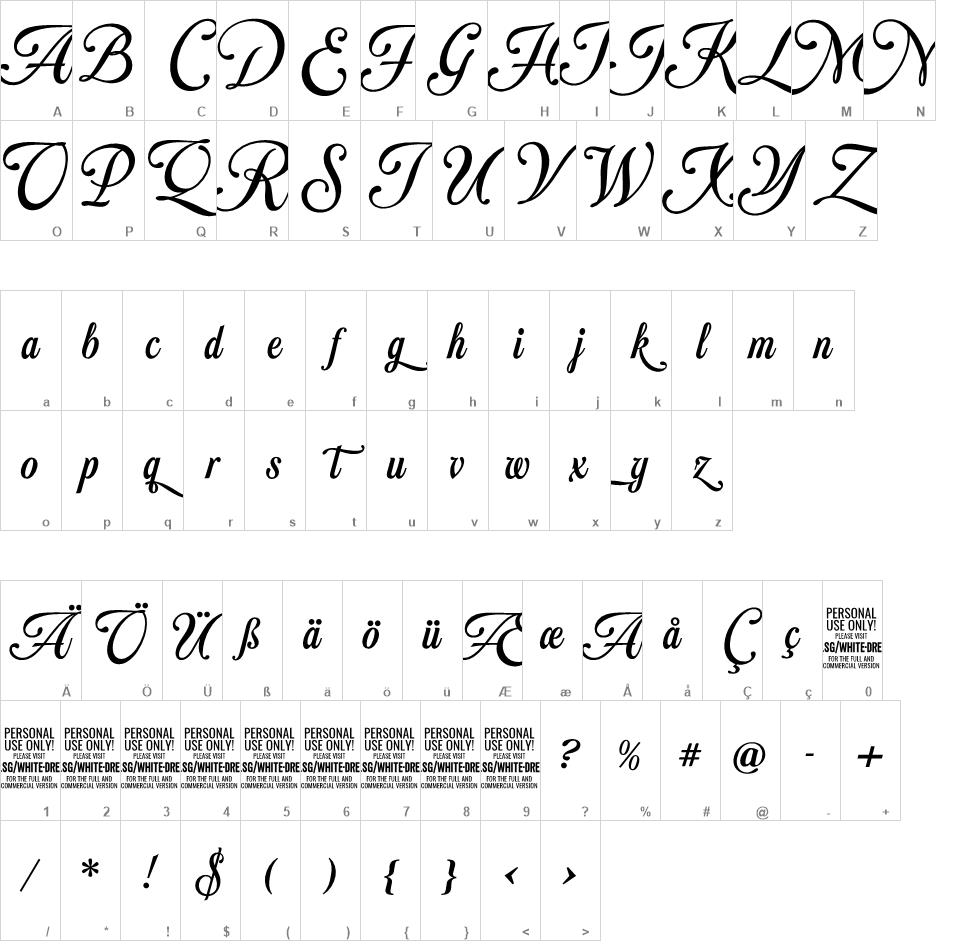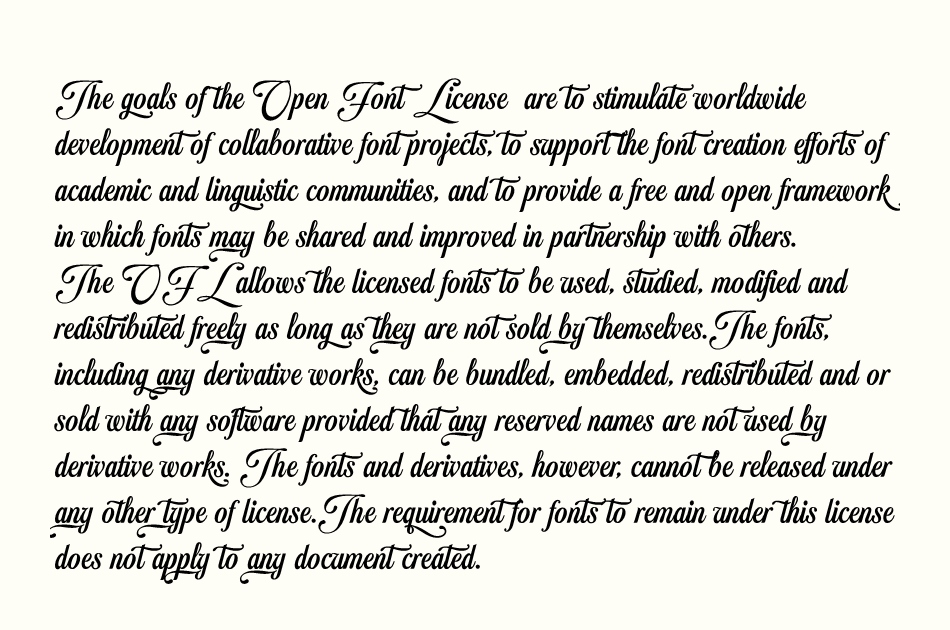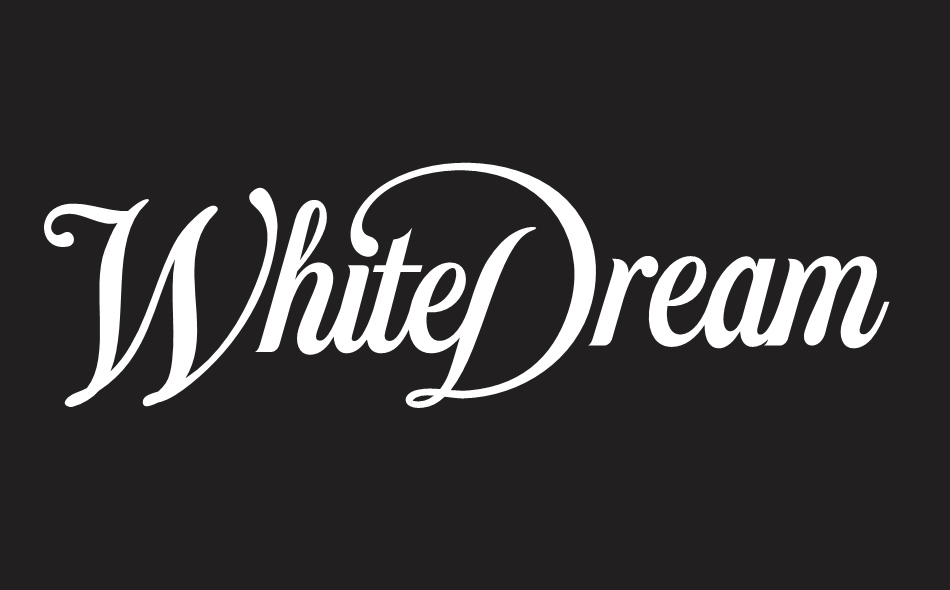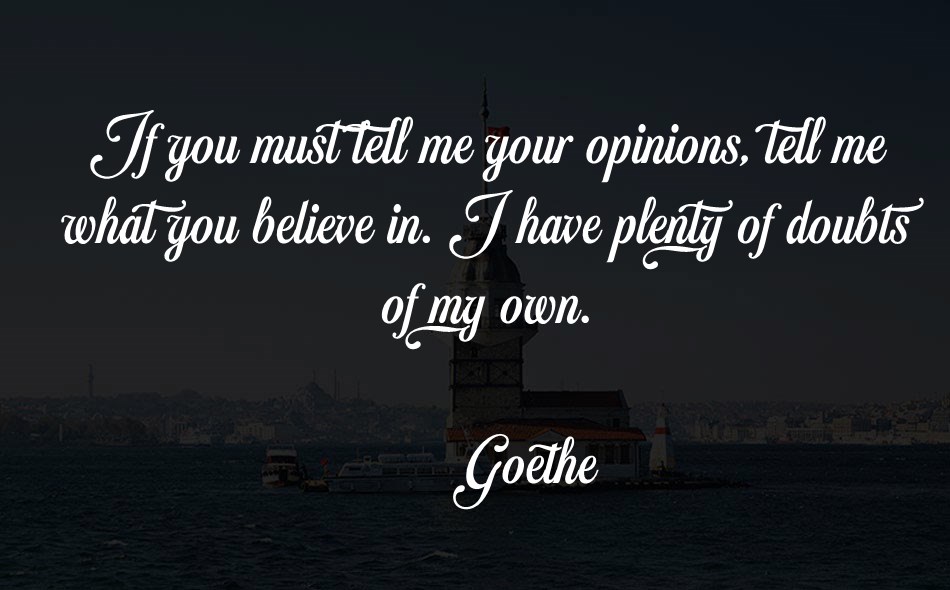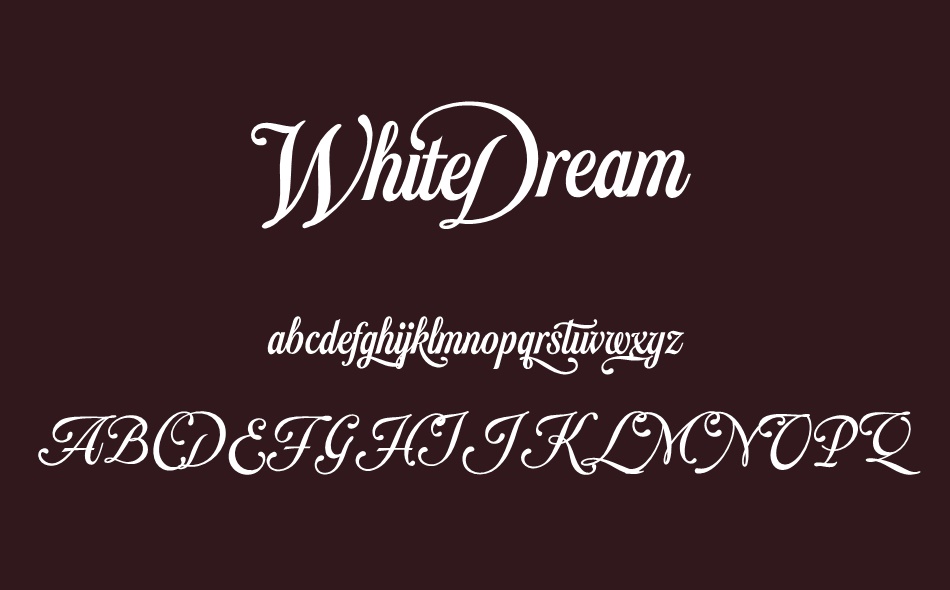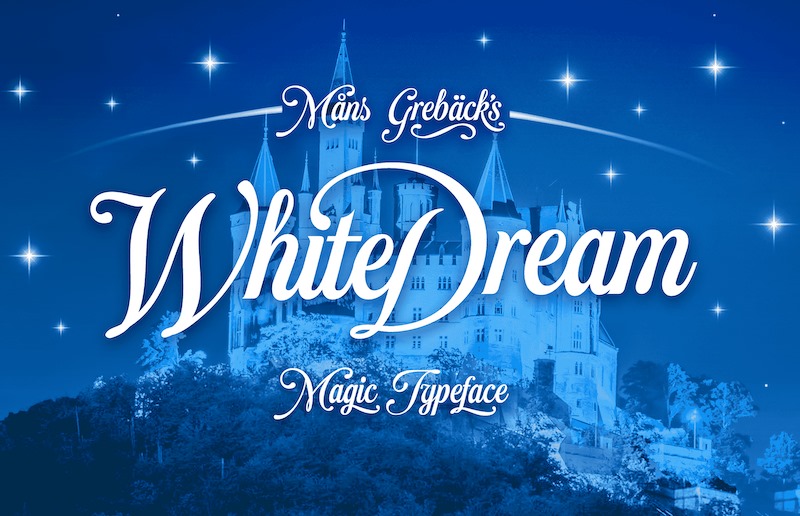
White Dream font
Use underscore _ anywhere in a word to make a swash.
Example: Caste_la
Use multiple underscores for different swashes.
Example: Cinde__rella
White Dream is a clean, swashy and beautiful script typeface.
It brings your thoughts to the magic setting in a wonderful story or a fantasy movie. This decorative logotype font is the ultimate Disney princess typeface; a font that reminds you of everything from Cinderella and Snow White to Anna & Elsa of Frozen.
With the highest quality and perfection, this is a four-style calligraphic family consisting of Regular, Thin and Swash versions. These style, and the wide selection of alternates, together guarantees that you can always use it to design a logo or headline that will satisfy its purpose.
Use underscore _ anywhere in a word to make a swash. Example: Caste_la Use multiple underscores for different swashes. Example: Cinde__rella (Download required.)
White Dream is built with advanced OpenType functionality and has a guaranteed top-notch quality, containing stylistic and contextual alternates, ligatures and more features; all to give you full control and customizability. It has extensive lingual support, covering all Latin-based languages, from North Europe to South Africa, from America to South-East Asia. It contains all characters and symbols you'll ever need, including all punctuation and numbers.